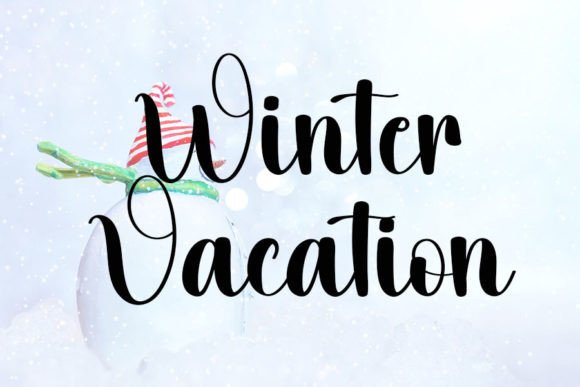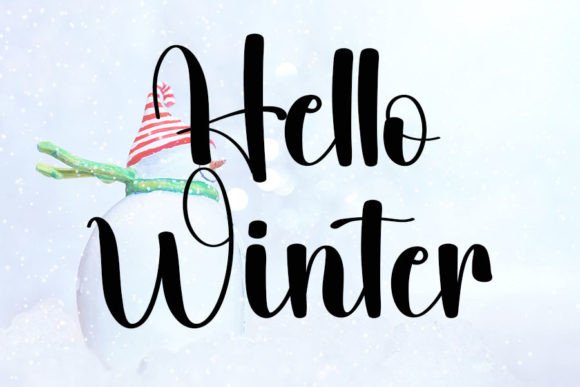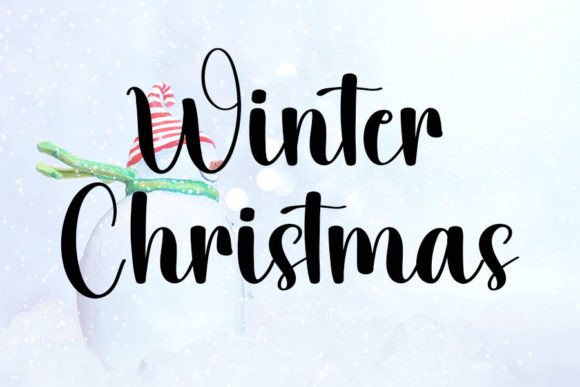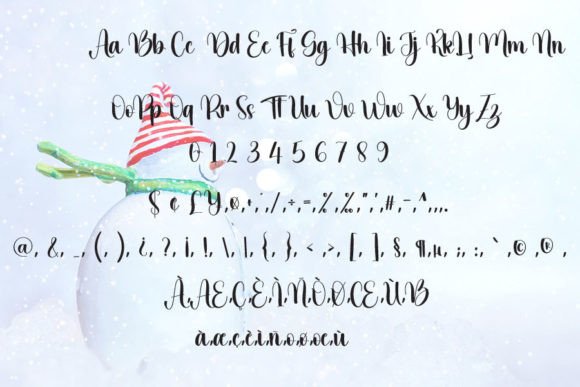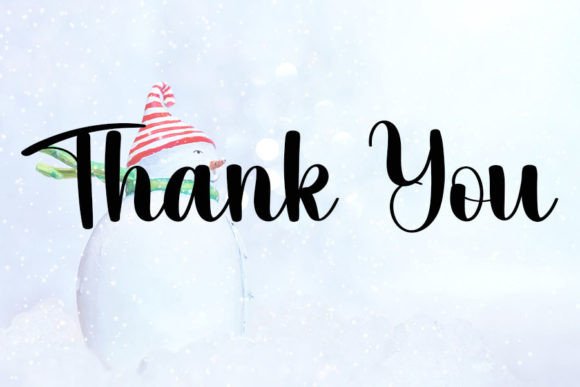
Winter Font Download – Fun Handwritten Script
The Winter Font download is a playful handwritten typeface created to bring warmth and friendliness to your projects. With its smooth curves and cheerful strokes, this font feels approachable and versatile. Whether you are crafting greeting cards, designing presentations, or creating digital artwork, Winter Font adapts beautifully to both casual and professional needs.
A Fun and Friendly Handwritten Style
The Winter Font download captures the inviting charm of simple handwriting. Its natural flow makes text feel more personal while still maintaining clarity. This balance ensures that your designs remain stylish and easy to read across different mediums.
Perfect for Crafts and DIY Projects
Crafters will especially appreciate the Winter Font download. It works wonderfully for handmade cards, stickers, scrapbooks, and planners. Its friendly handwritten look adds authenticity, making every DIY project feel unique and meaningful.
Great for Digital Designs and Presentations
The Winter Font download also shines in digital projects. From professional presentations to social media graphics and blog headers, its playful style keeps content engaging and approachable. It adds personality to your designs while keeping messages clear and impactful.
Readability with Personality
Many handwritten fonts sacrifice readability, but the Winter Font download avoids this issue. Its neat and consistent letterforms keep text legible while still offering character and creativity. This makes it versatile enough for both large titles and smaller passages of text.
Why Choose Winter Font?
Among countless handwritten fonts, the WinterFont download stands out for its friendly design, neat structure, and broad usability. It’s casual enough for personal projects yet professional enough for branding, making it a dependable choice for a variety of creative tasks.
Add Cheerful Style to Your Designs
Typography defines how your work feels, and the WinterFont download helps you add friendliness, fun, and charm. Whether for crafts, greeting cards, or digital designs, this font ensures your projects shine with a joyful and creative touch.